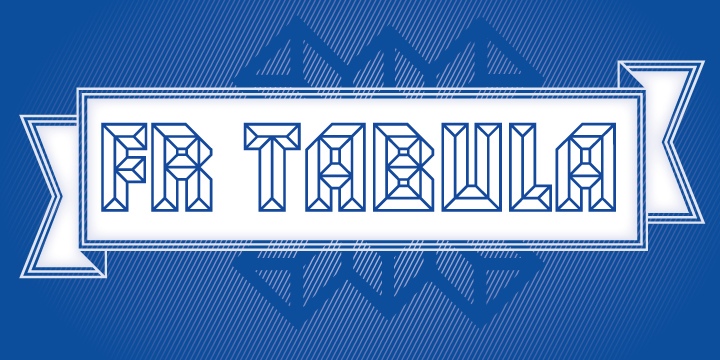
FR Tabula Font
FR Tabula Font is perfect for data visualization, financial reports, analytical dashboards, spreadsheet design, scientific publications, statistical presentations, research documents, tabular layouts, systematic information design, and professional data communications.
FR Tabula Font is exciting because it represents the pinnacle of information design with its scientifically optimized letterforms and exceptional clarity that transforms complex data into readable, comprehensible information. Its systematic approach to character design ensures perfect alignment and spacing in tabular formats, making it indispensable for professionals who work with numerical data and need absolute precision in their communications.
The FR Tabula Font family includes Light, Regular, Medium, Bold weights, corresponding Italic styles, Tabular figures, Proportional numbers, Scientific notation, Mathematical symbols, and Data alternates, providing designers with comprehensive tools for creating precise information hierarchies and professional analytical presentations.
Whether you're designing financial dashboards, creating research publications, developing analytical software interfaces, or producing scientific documentation, FR Tabula Font provides the systematic foundation needed for credible data communication. Its precise character makes it particularly effective for financial institutions, research organizations, data analytics companies, and scientific publishers that require absolute accuracy in their information design.
Perfect for data analysts, financial designers, research communicators, and information architects, this font offers the systematic qualities essential for successful data presentation. The typeface's methodical approach ensures consistent performance across complex spreadsheets, detailed reports, and sophisticated analytical interfaces.